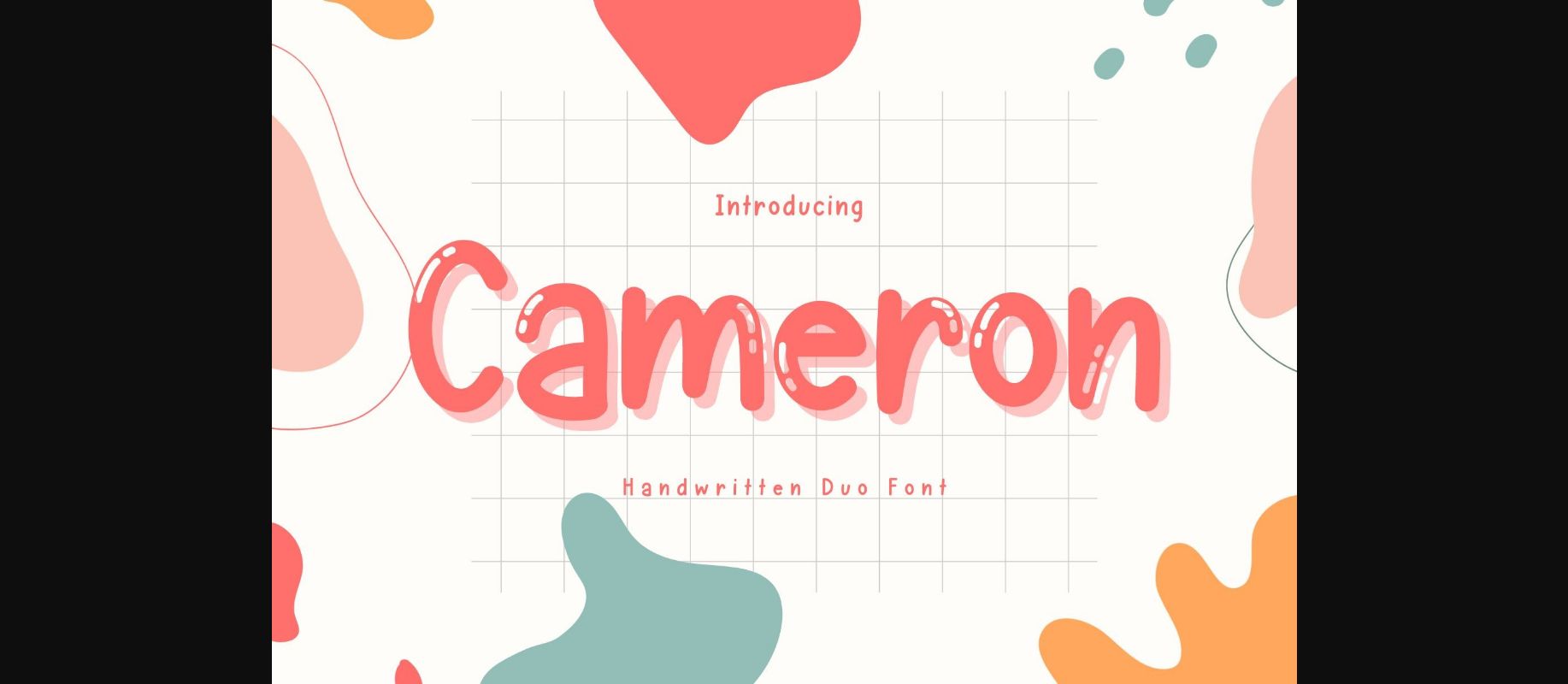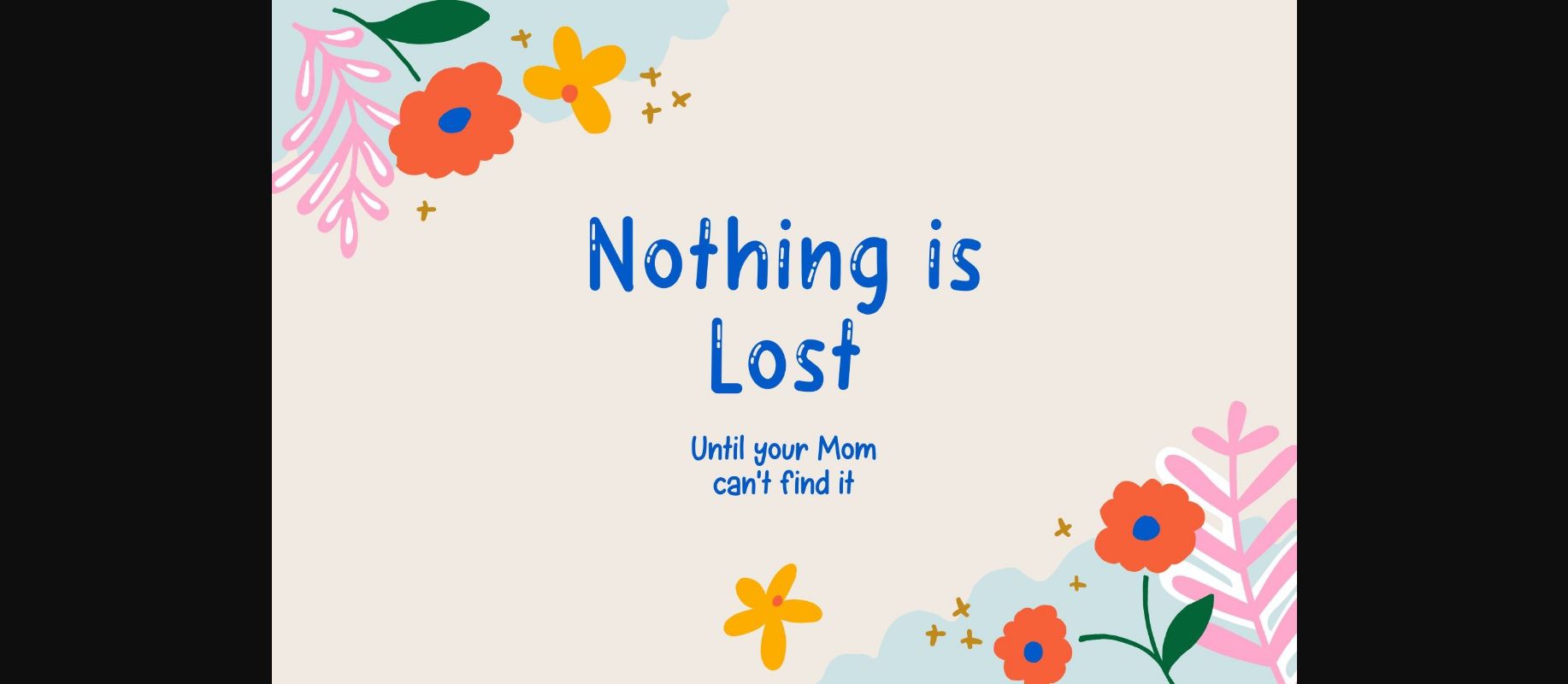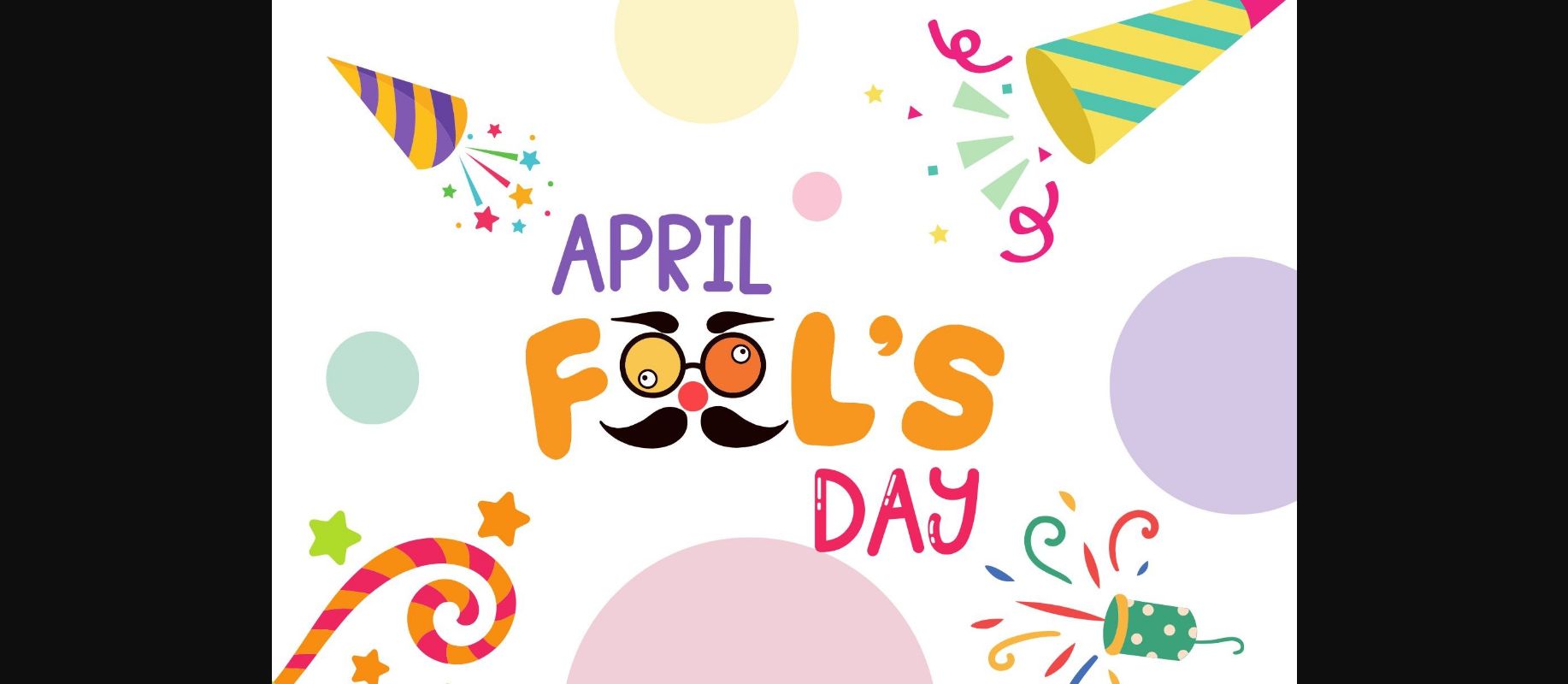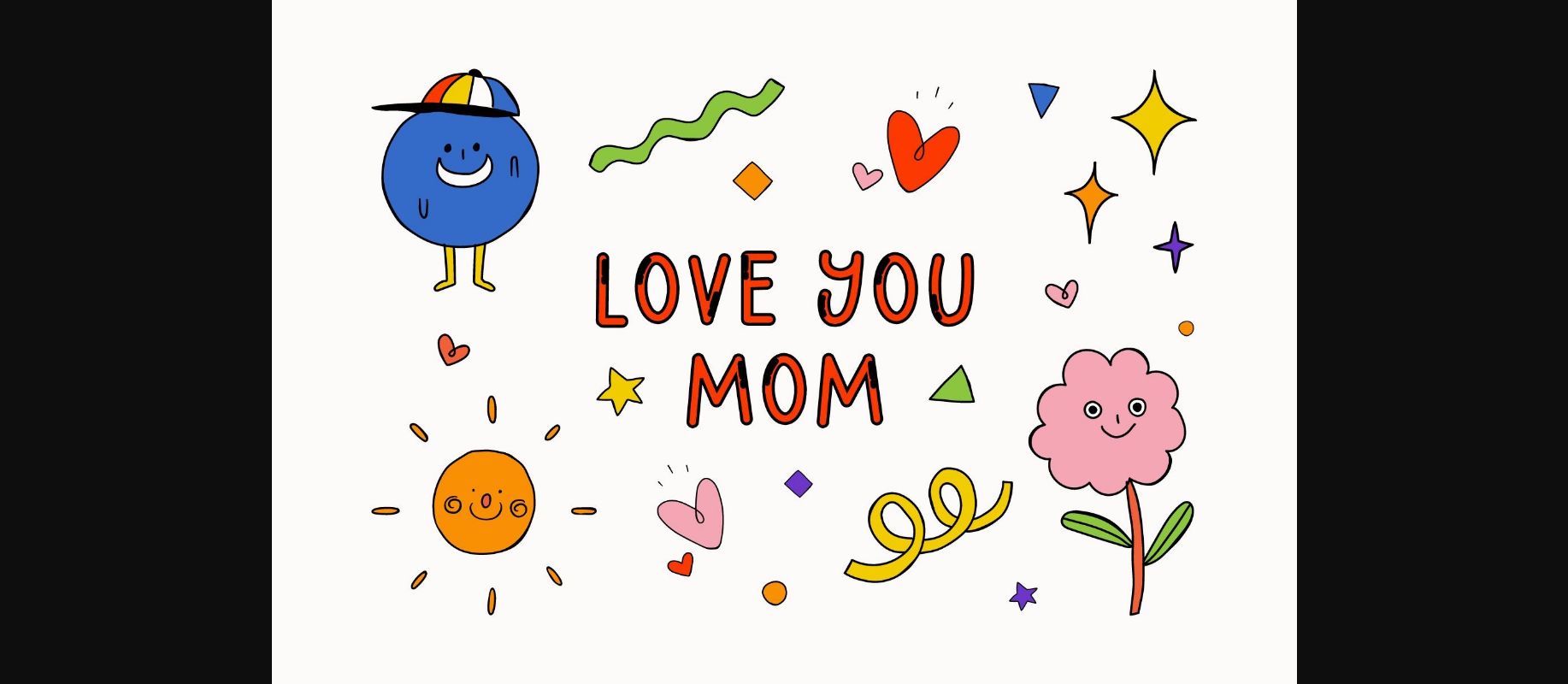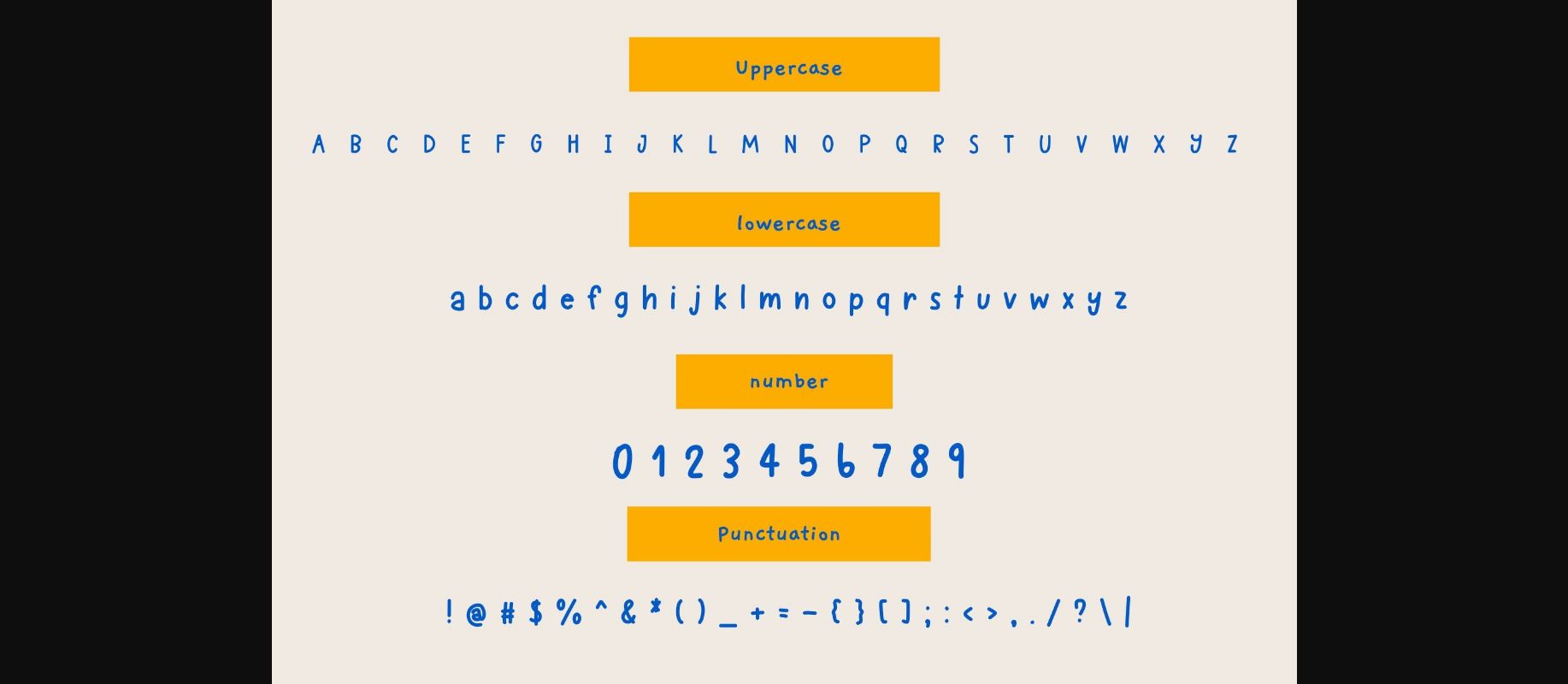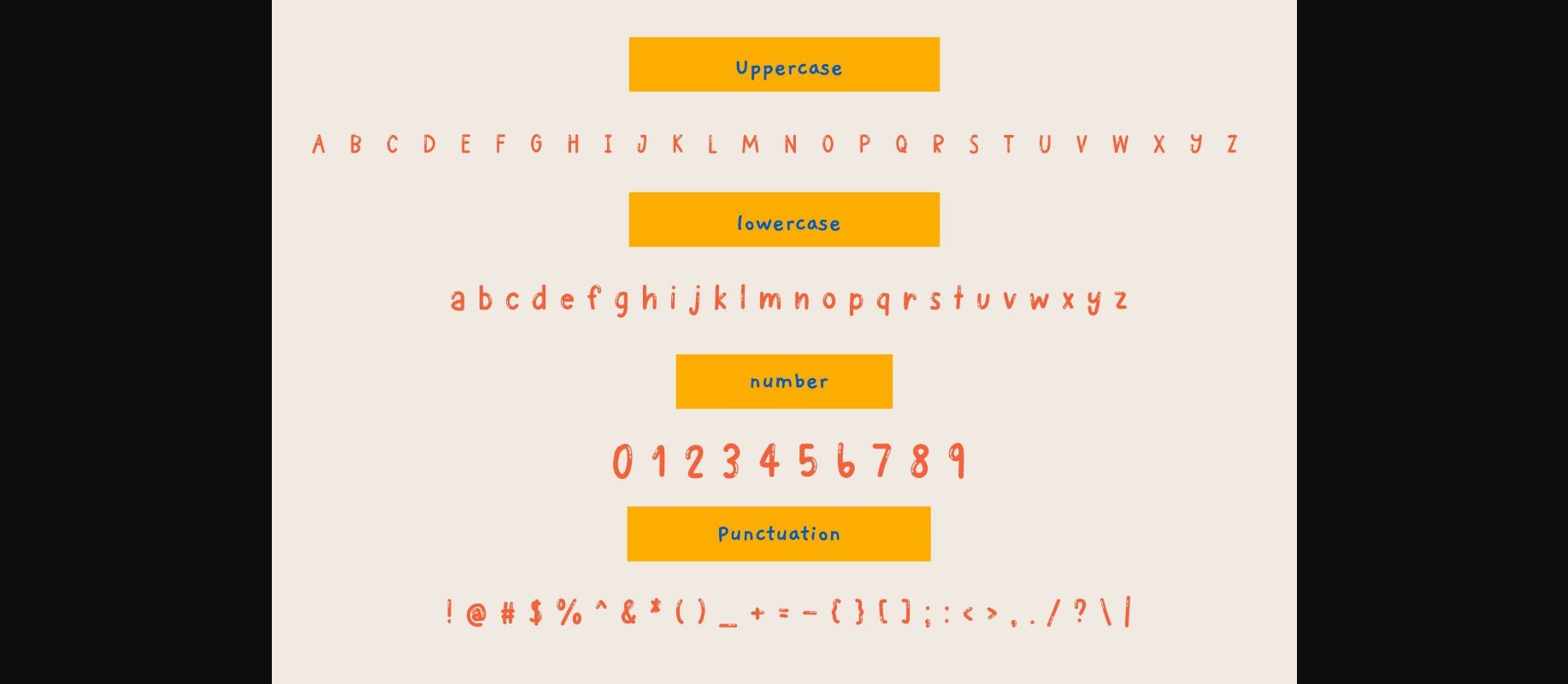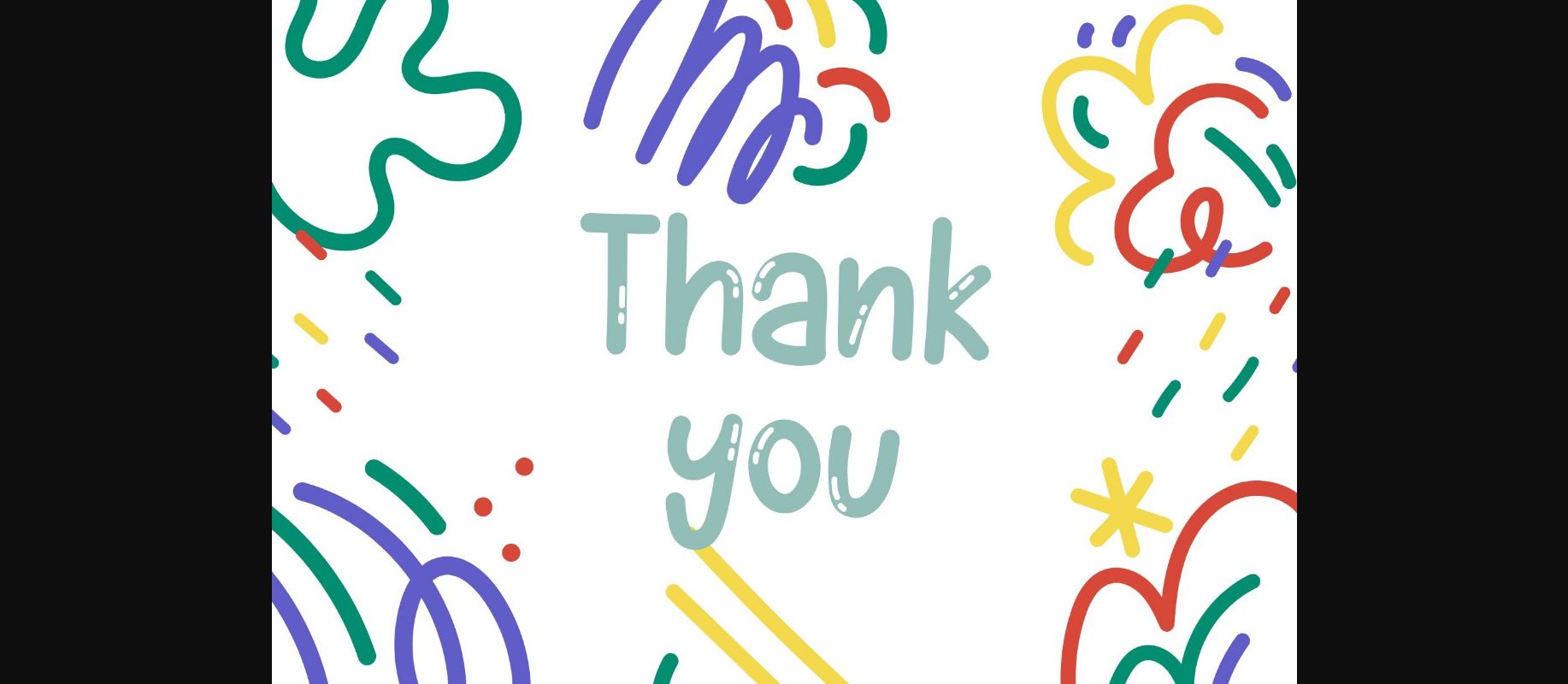
Cameron Font
About Cameron Font
Cameron is a cute handwritten font. It embodies playfulness and authenticity and is the perfect choice for all your favorite projects such as blog posts, logos, branding, ads, invitations, greeting cards, planners, photo albums, decorations, and much more. Add it to any of your designs, and enjoy the results!